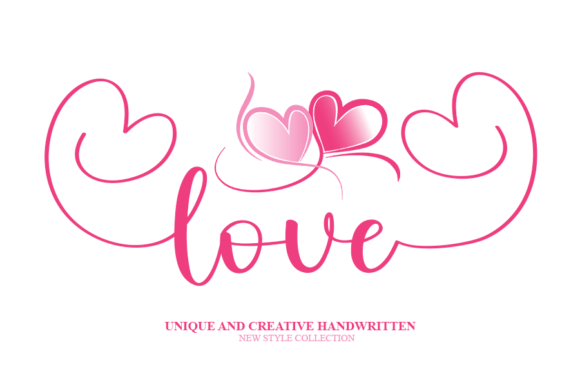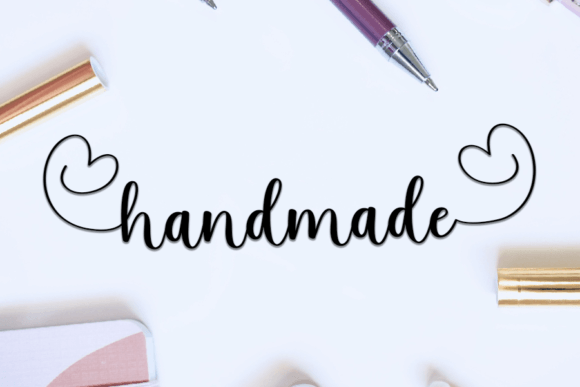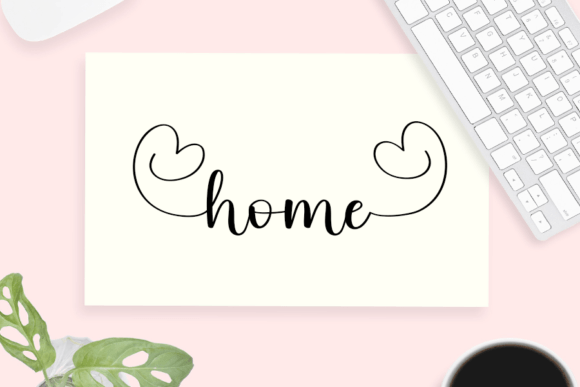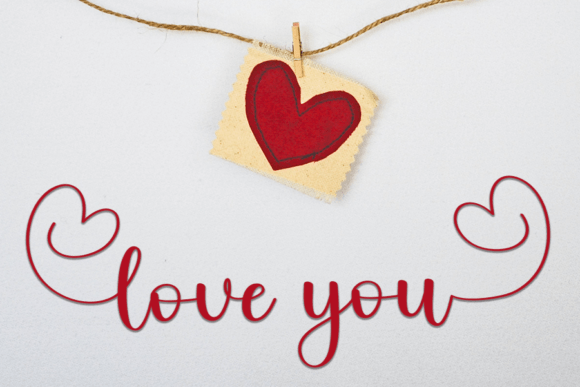
Love Font
About the Love Font
Unleash your creativity with Love Font, a versatile font perfect for a wide range of applications. Love is a delicate handwritten font carefully crafted for a cool and unique design. This font can be used to write letters, invitations, food products, titles and more.
Love Font’s delicate script is ideally suited for projects requiring a touch of elegance and intimacy, such as wedding invitations, greeting cards, or branding for artisanal food products. Its informal character makes it perfect for short headlines and impactful quotes, adding a personal touch to logos and packaging. However, its low x-height and intricate letterforms make it unsuitable for body text or UI elements where legibility is paramount.
Pairing Love Font with a clean sans-serif like Montserrat for body copy provides a strong contrast and enhances readability. For a more playful feel, consider pairing it with a rounded geometric sans-serif such as Circular Std. A classic serif like Garamond could also create a sophisticated balance, providing a formal counterpoint to Love Font’s handwritten charm.
The overall personality of Love Font is best described as romantic and whimsical, yet sophisticated. It evokes a sense of handcrafted quality and personal connection, making it a fitting choice for brands that emphasize authenticity and emotional engagement.
Love Font Usage Examples
Love Font Example